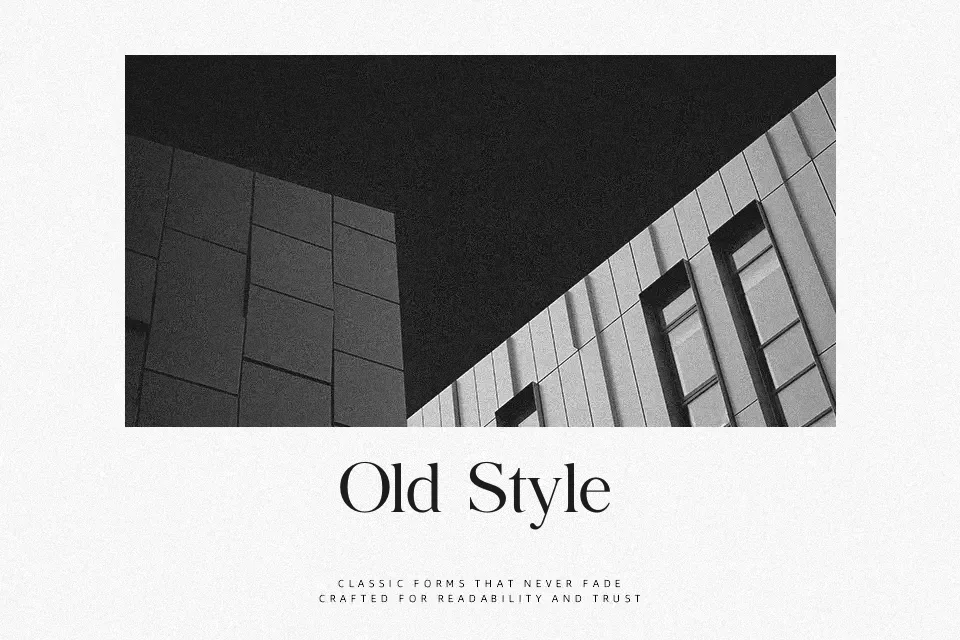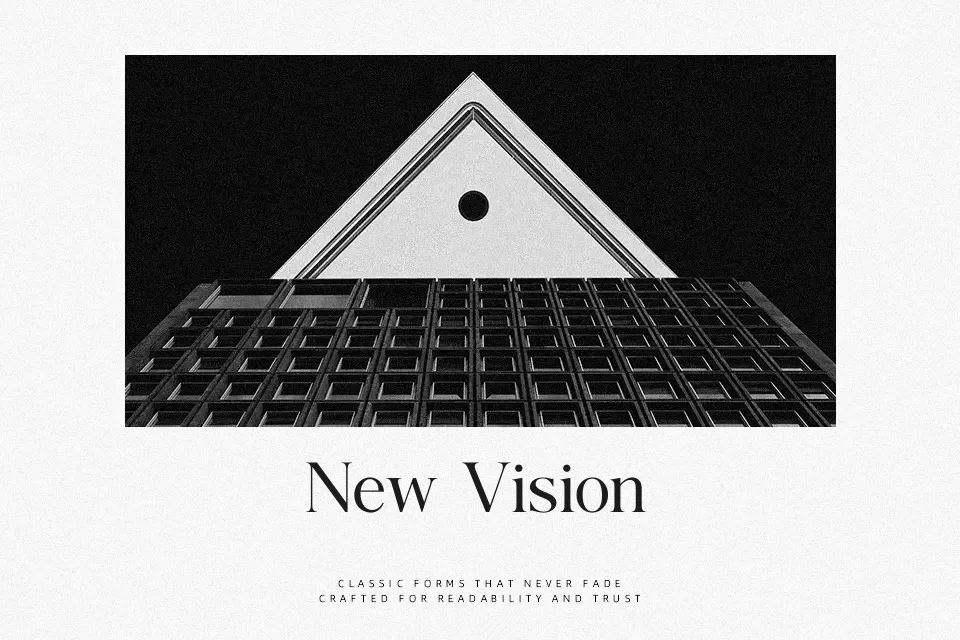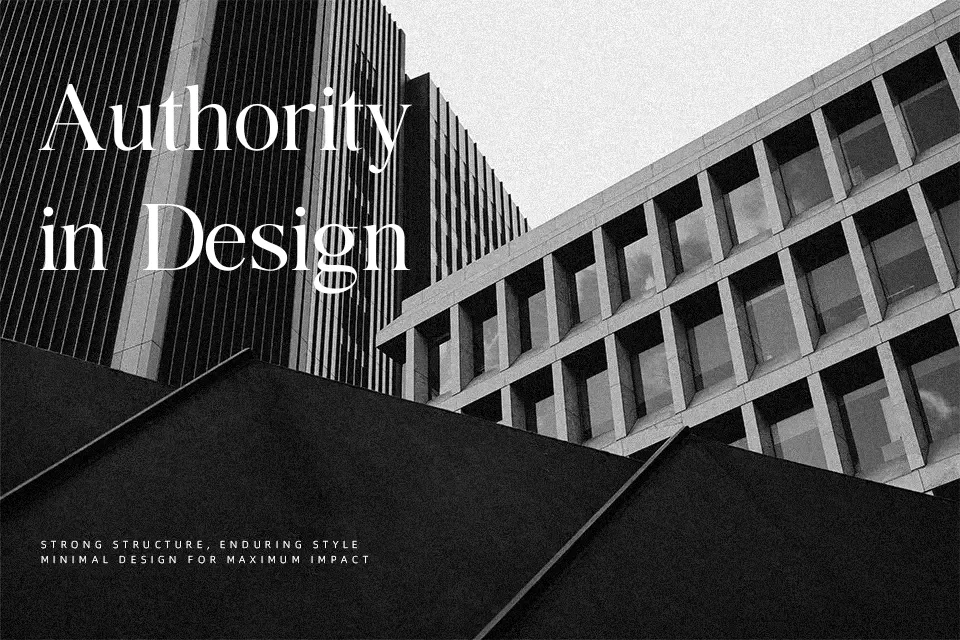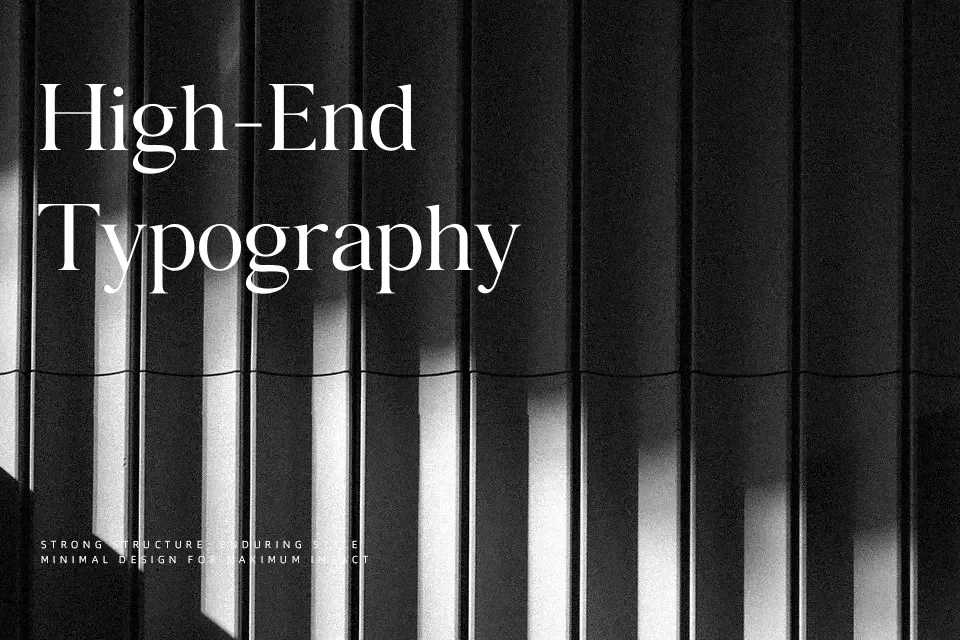
Agatho Font Family
Designed by Andrii Shevchyk
Agatho Font is a modern, high-contrast serif typeface characterized by delicate strokes and a graceful structure. Featuring classic uppercase letters alongside unique stencil-like lowercase cuts, it exudes a sophisticated, luxurious aesthetic. This typeface truly shines in large display settings, functioning beautifully in luxury fashion branding, premium editorial layouts, elegant wedding invitations, and striking album covers. The intricate detailing commands attention when given room to breathe. However, due to its thin hairline strokes and dramatic contrast, Agatho is poorly suited for dense body text or small digital user interfaces where legibility significantly drops. Compared to traditional serifs, it carries a contemporary, fashion-forward edge that instantly elevates premium design projects.
High-end fashion branding and logos
Elegant wedding invitations and stationery
Striking editorial headlines and magazine covers
Premium product packaging and labels
Small UI design elements and app interfaces
Lengthy paragraphs or dense body copy
Low-resolution digital screens
Perfect for branding, editorial, and fashion, with a classic and decorative style.